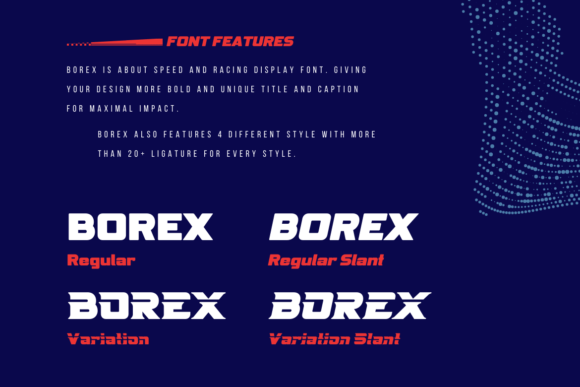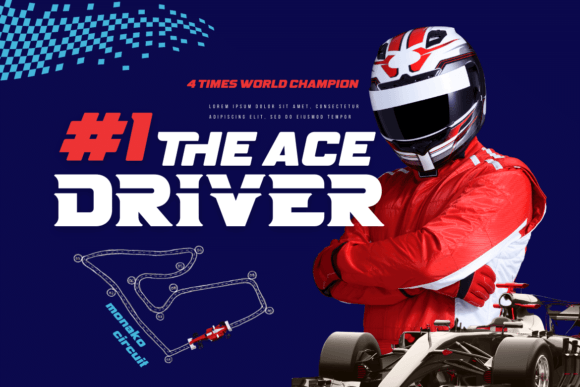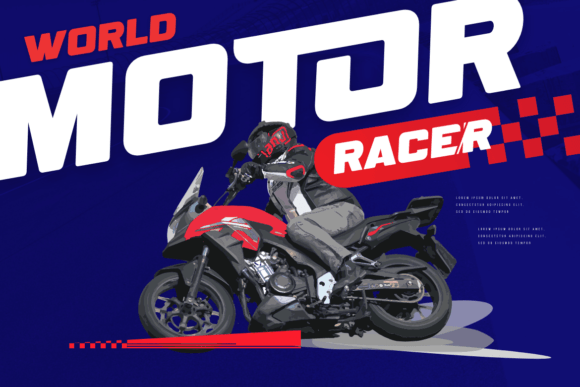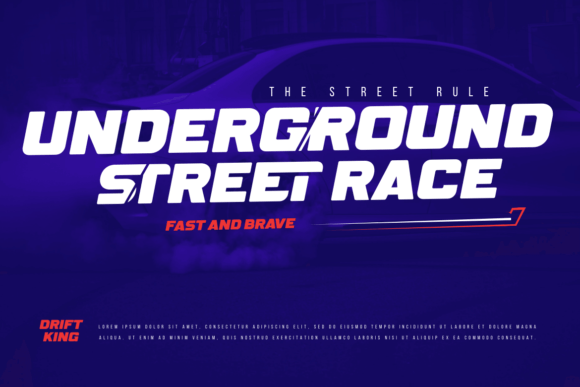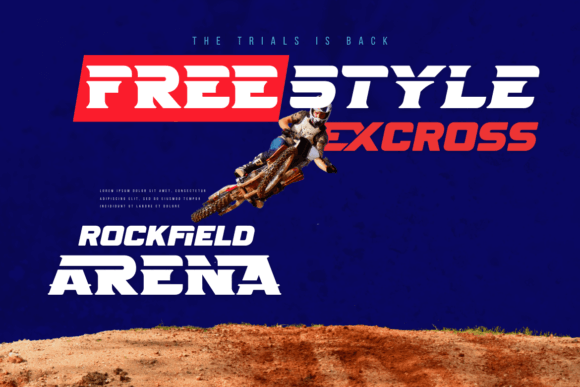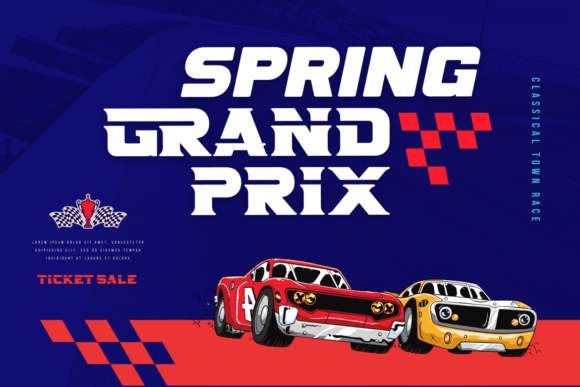
Introducing Borex Font: The Ultimate Choice for Sport Racing Designs
I’ll never forget the time I was working on a project for a client who needed a font that could capture the excitement and energy of the race track. I had spent hours scouring the internet for the perfect font, but nothing seemed to fit the bill. That was until I stumbled upon Borex Font. With its bold and dynamic letterforms, it was like a breath of fresh air. I knew immediately that it was the perfect fit for my project, and I’m excited to share my experience with you.
A Personal Review of Borex Font
• ✨ Bold and dynamic letterforms that capture the excitement and energy of the race track
• ✅ Four unique variations, including regular, slant, and taper styles, to customize your designs
• 🎉 PUA encoded, making it easy to access all delightful glyphs and swashes
• 🔥 Perfect for sport racing designs, including logos, posters, and social media graphics
While Borex Font is an amazing font, there are a few things to keep in mind. 🤔 For example, it can be a bit overpowering if not used correctly. ⚠️ Additionally, some users may find that the font is not suitable for body text, as it is quite bold.
The Backstory of Borex Font
Borex Font was designed with the sport racing enthusiast in mind. The designer wanted to create a font that could capture the excitement and energy of the race track, while also being versatile enough to use in a variety of design projects. The result is a font that is both bold and dynamic, with four unique variations to suit different design needs.
What is Borex Font? Borex Font is a bold and dynamic font designed specifically for sport racing designs.
Is Borex Font PUA encoded? Yes, Borex Font is PUA encoded, making it easy to access all delightful glyphs and swashes.